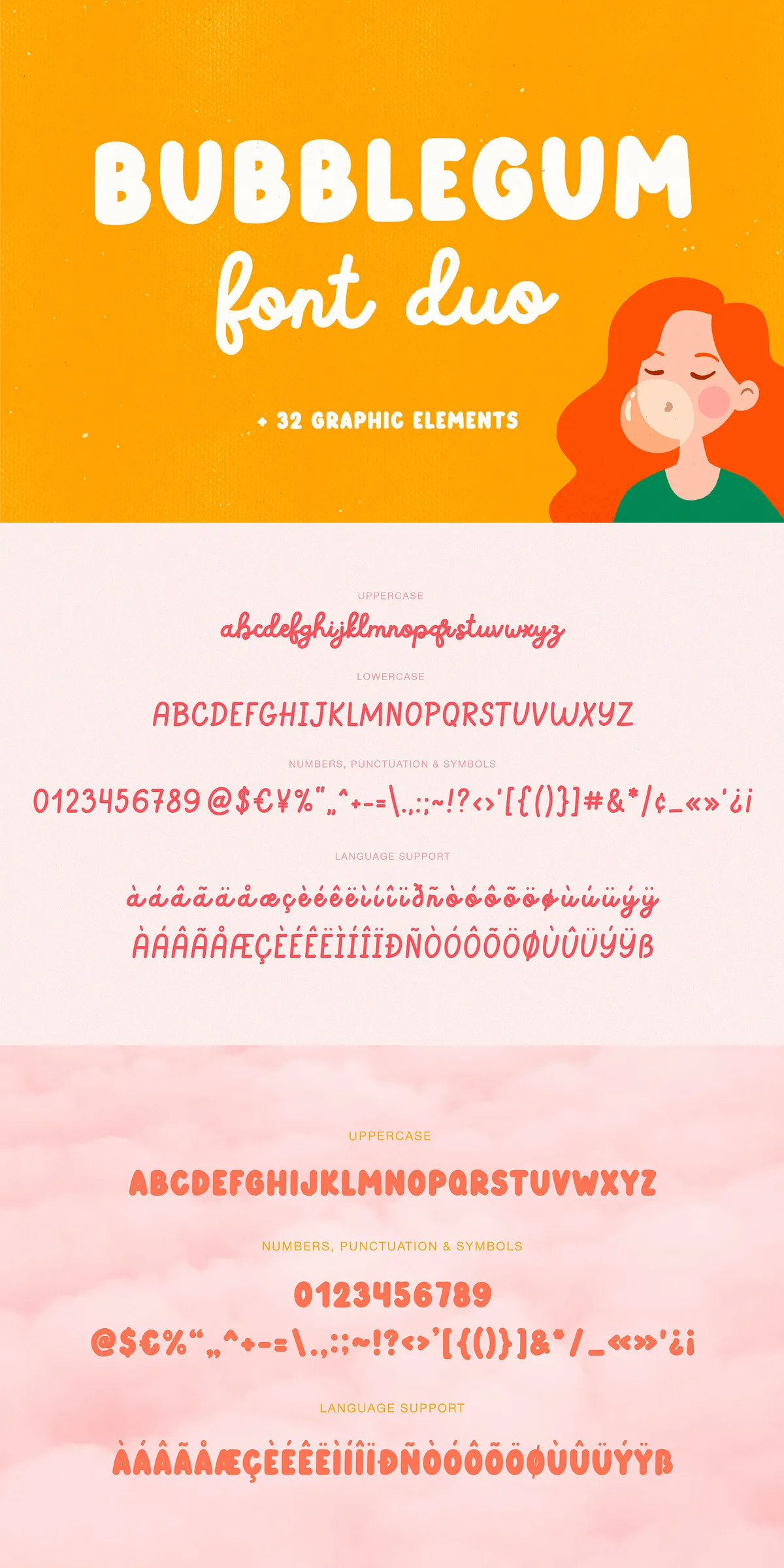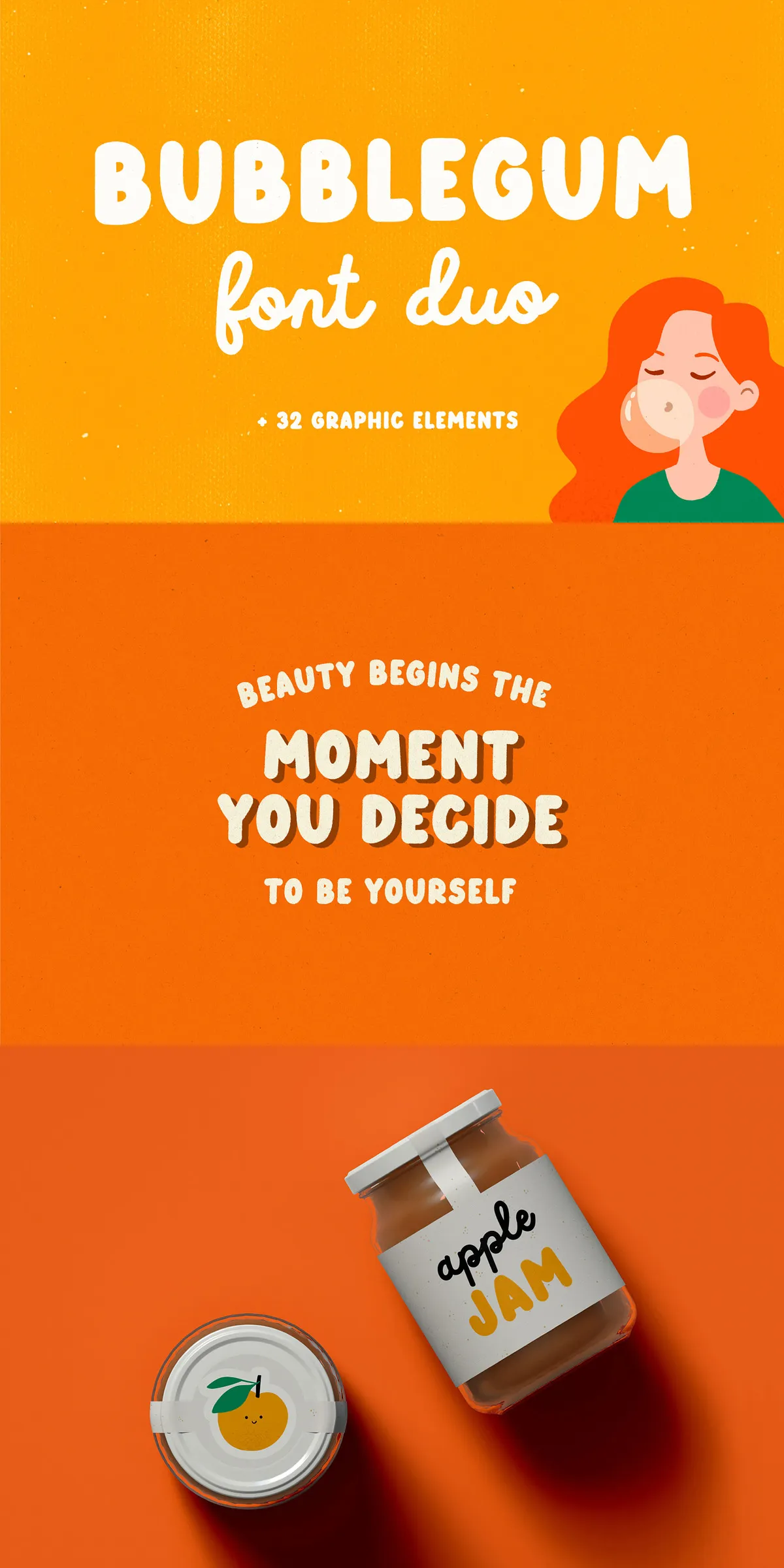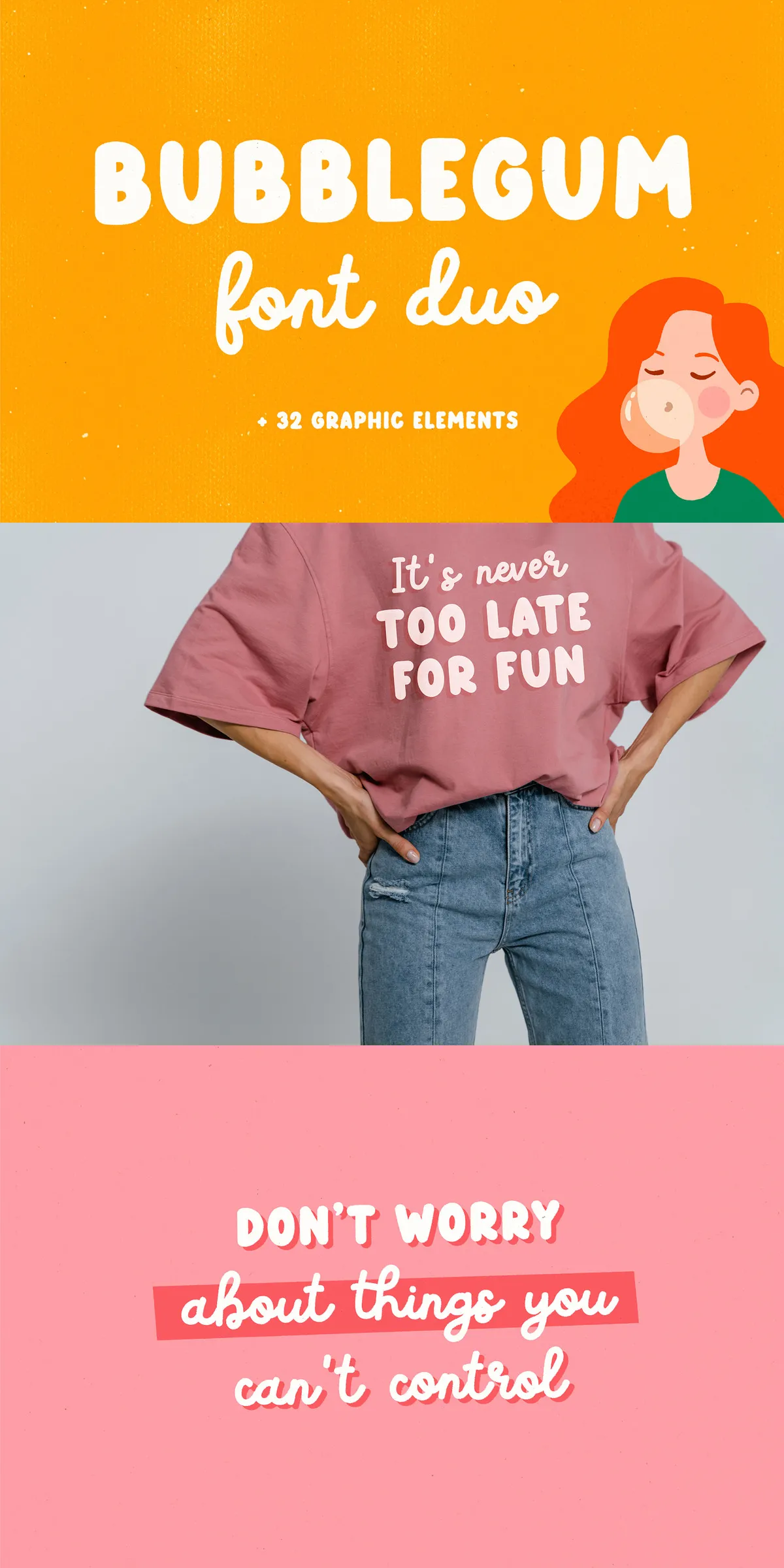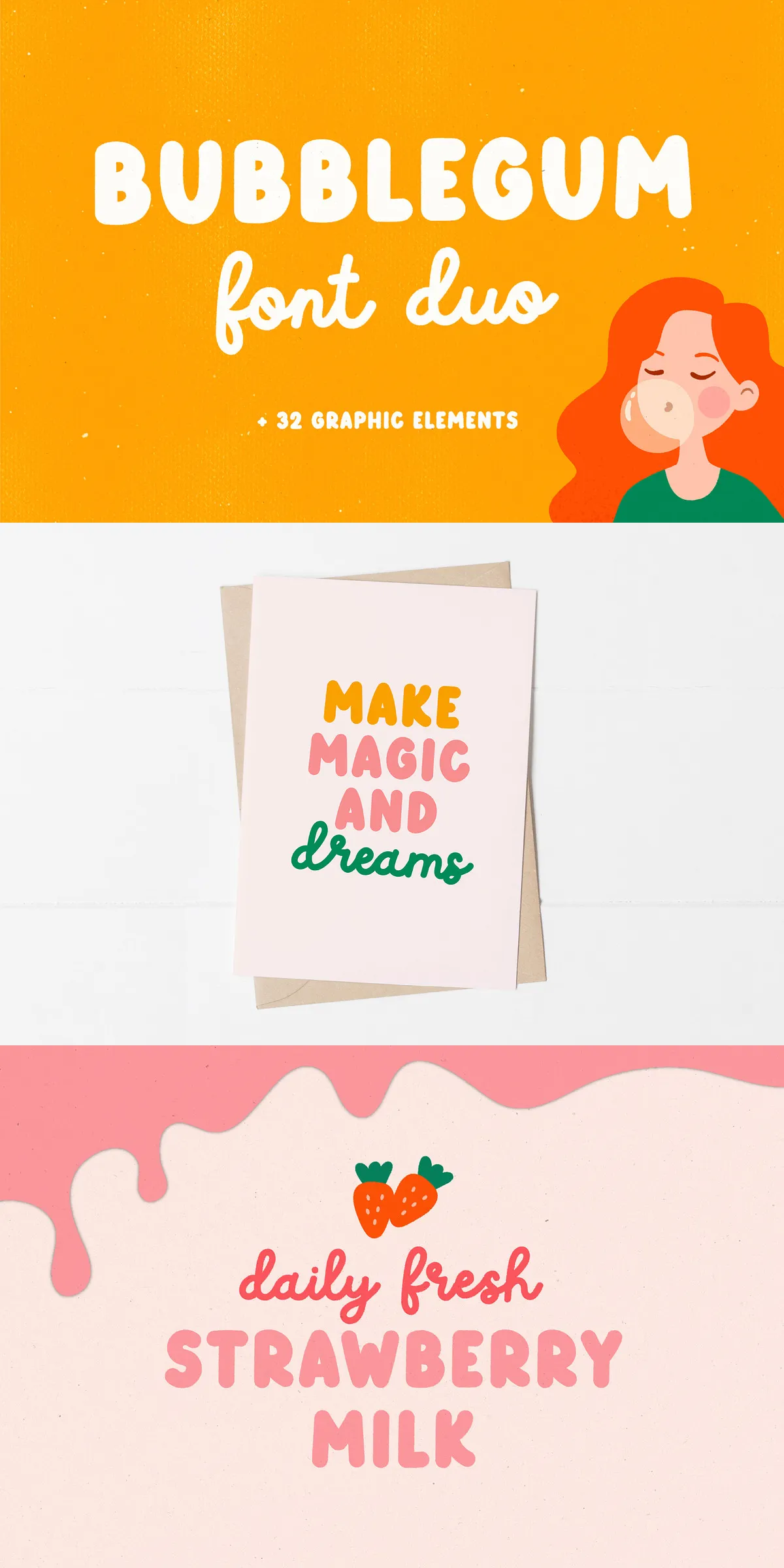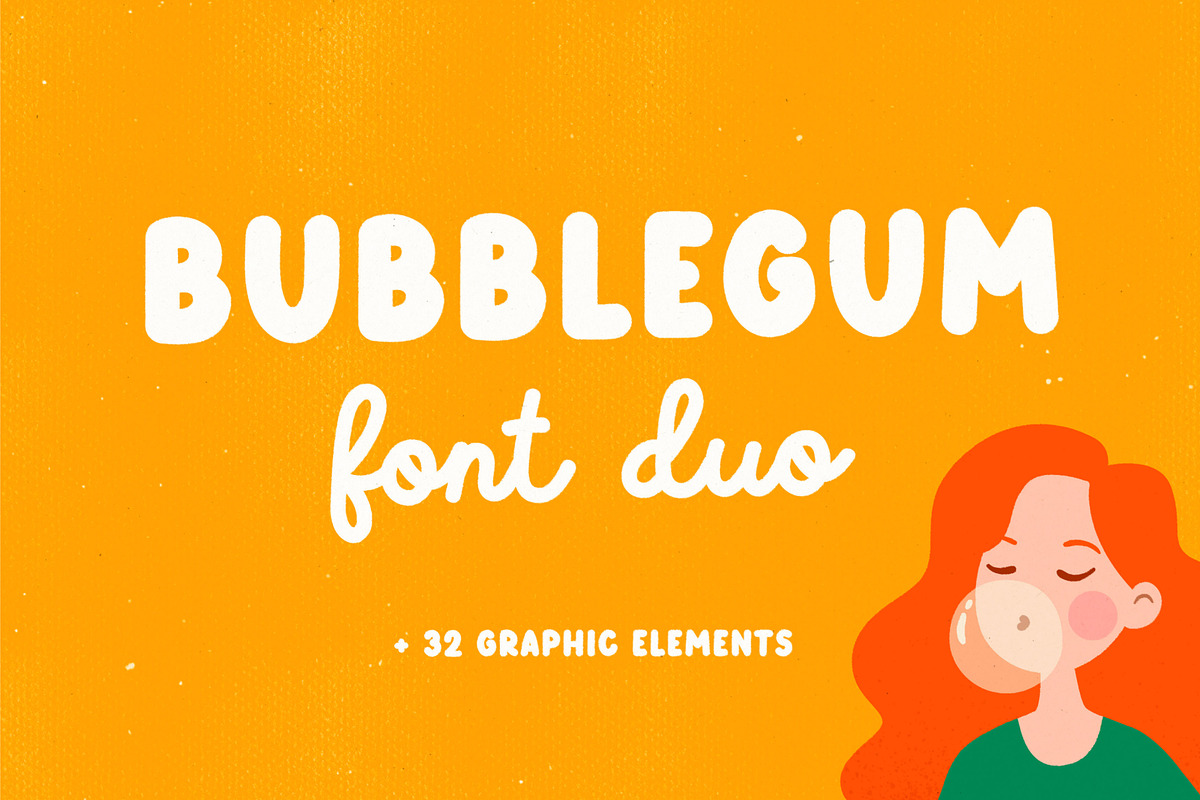
Get ready to spark joy and unleash creativity with Bubblegum — a vibrant, cheerful font duo engineered for designers who love bold personality and unforgettable charm. From vibrant logos and eye-catching invitations to sweet baby clothing labels and whimsical journaling, Bubblegum transforms every project into a story of fun, joy, and pure delight. Its bouncy, rounded letterforms and soft, candy-like curves bring a childlike wonder to digital and print design, making it the ultimate choice for brands, creators, and artists who value lighthearted elegance with a pop of character.
With this all-in-one kit, you’re not limited to just typography — you have a full visual language at your fingertips.
Playful Typography That Commands Attention
Bubblegum’s design speaks to the heart of fun, with soft round edges, generous spacing, and a gentle bounce in every character. The font feels like a smile made visible — instantly readable yet full of personality. It’s ideal for creating:
- Birth announcements and baby shower invites with a sweet, nostalgic feel
- Party posters, event signage, and social media banners for birthdays, graduations, or themed gatherings
- Brands targeting youthful, joyful, or lifestyle-oriented audiences
- Journal covers, planners, and sketchbooks where fun meets function
- T-shirts, tote bags, and baby clothing with bold, colorful text that stands out in any crowd
Its readability in medium to large sizes ensures your message isn’t lost in the fun — it’s amplified by it.
Endless Creative Possibilities, Zero Boundaries
Whether you’re a designer, small business owner, or hobbyist, Bubblegum empowers you to express your vision with confidence and joy. Its versatility shines across industries:
- Personal Branding – Create unique stationery, business cards, or social media graphics that reflect a fun, approachable personality.
- Product Packaging – Use on baby food labels, gift boxes, or handmade treats to attract attention and evoke emotion.
- Print & Digital Marketing – Add playful energy to email campaigns, Instagram posts, or flyers with bold, visually engaging typography.
- Children’s Content – Ideal for books, learning materials, and educational games that need a friendly, engaging font.
Ready to Add a Splash of Joy to Your Work?
Bubblegum isn’t just a font — it’s a feeling. It’s the giggle in a logo, the sparkle in a birthday card, the smile on a baby’s clothing. It’s the design choice that says: “This matters, and it should be fun.”